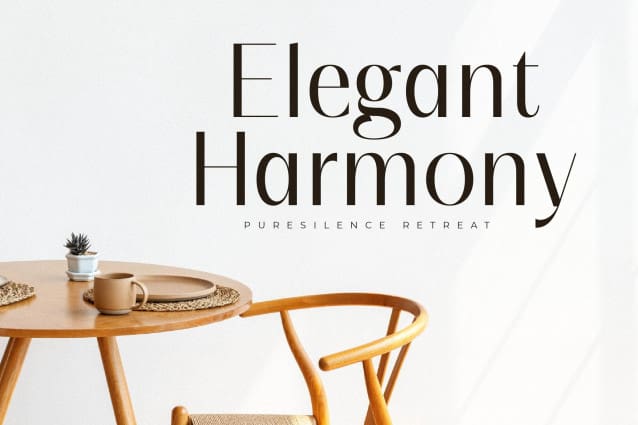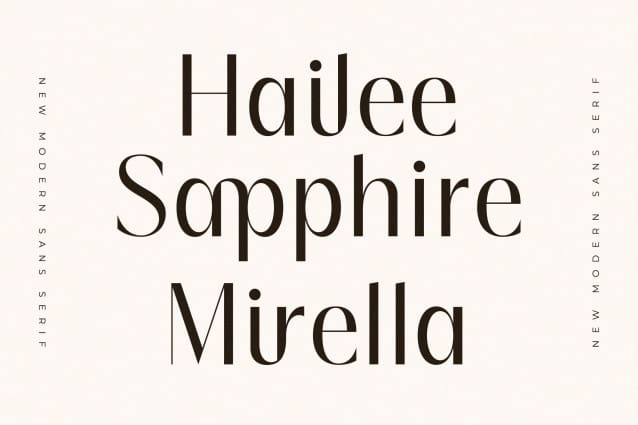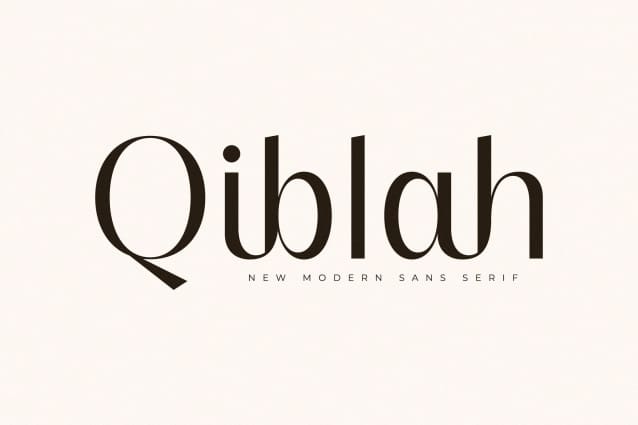
Qiblah Font
Qiblah Font is a modern and stylish sans serif font. Add it confidently to your projects and enjoy the results!  Ideal for logos, handwritten quotes, product packaging, header, poster, merchandise, social media & greeting cards.